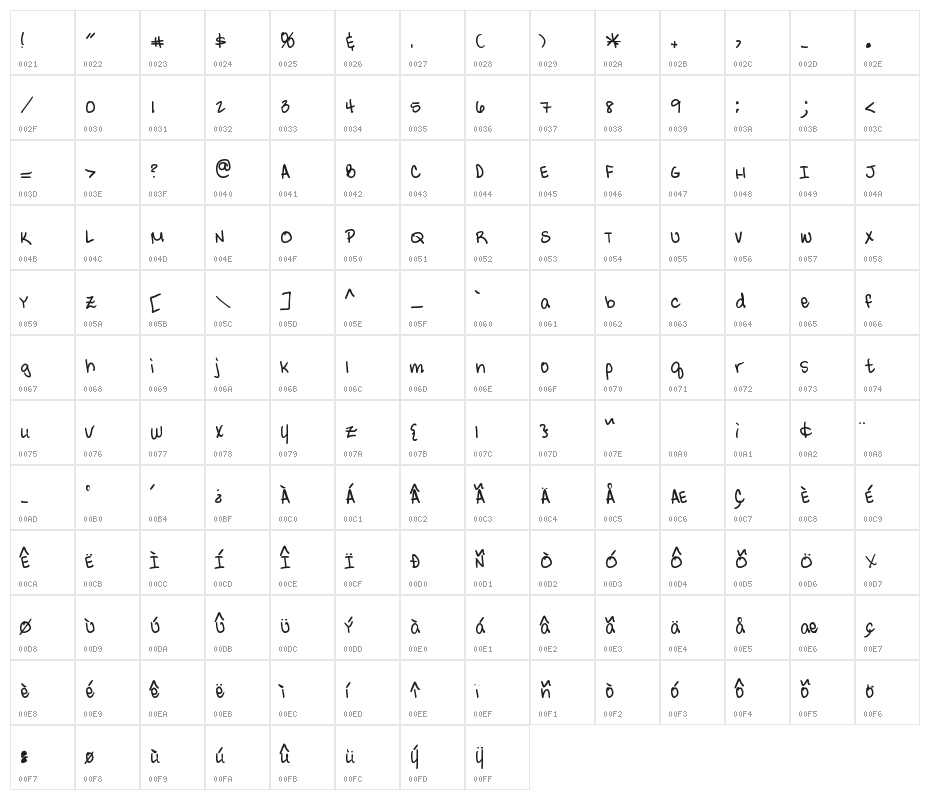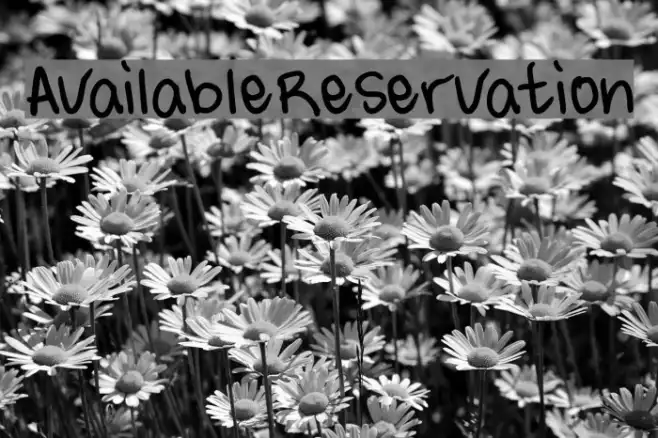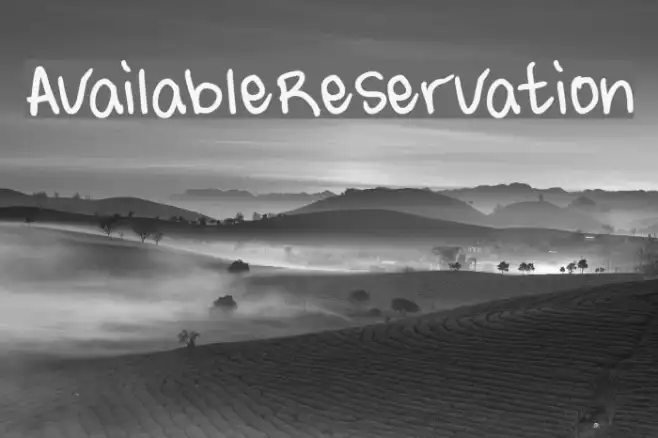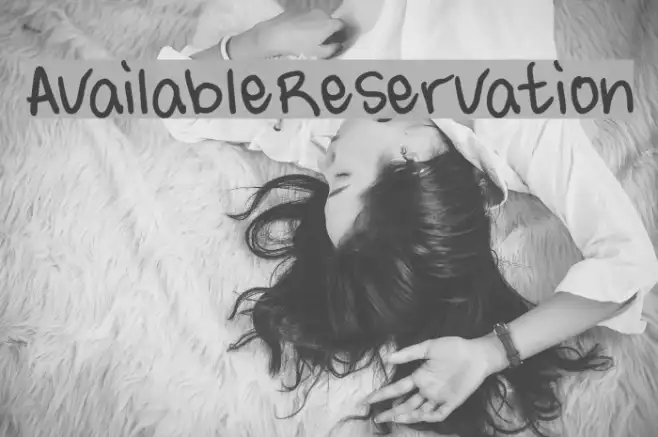
AvailableReservation Font
AvailableReservation Description
This font features a playful and casual handwritten style, characterized by its smooth, flowing lines and slightly irregular shapes. The letters are bold and rounded, giving a friendly and approachable feel. The uppercase and lowercase letters maintain a consistent style, with a slight slant that adds to the informal aesthetic. The numerals and special characters are crafted with the same playful touch, ensuring a cohesive look across all text elements. This font is ideal for projects that require a personal, human touch, such as greeting cards, invitations, and informal branding.
| Use Case | Headlines, Informal text, Branding |
| Proposed Projects | Ideal for greeting cards, invitations, children's books, and informal branding. |